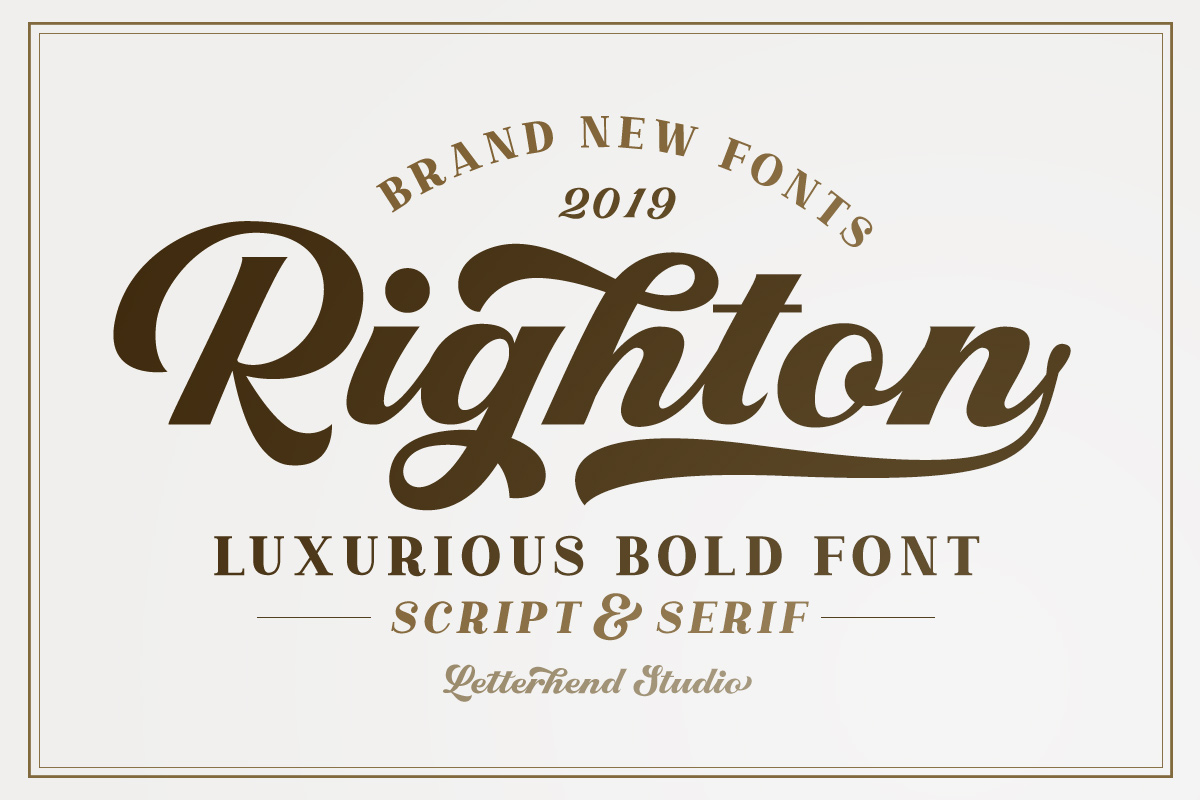
Righton Font
Righton Font is perfect for motivational coaching brands, positive lifestyle blogs, success-oriented business materials, uplifting social media campaigns, confidence-building app interfaces, achievement-focused presentations, inspirational book covers, progressive fitness branding, empowerment workshop materials, and optimistic startup identities. This energizing typeface brings positive momentum to personal development services, goal-setting applications, motivational speaker branding, success training programs, and forward-thinking educational platforms.
Righton Font is exciting because it embodies the spirit of determination and positive forward momentum through its confidently structured letterforms. The font features strong, assertive characters with clean lines and purposeful angles that convey reliability, progress, and unwavering optimism. Its distinctive construction showcases balanced proportions and confident spacing that create an immediate sense of trustworthiness and forward-thinking energy. The font's positive authority and encouraging presence make it perfect for brands seeking to communicate success, reliability, and inspirational leadership in their visual communications.
The Righton Font family includes various empowering styles: Light, Regular, Medium, Bold, Black, Italic, Condensed, Extended, Display, Rounded, and Motivational variants. Each family member maintains the core positive DNA while offering different levels of confidence for diverse success-oriented design applications. The comprehensive font collection ensures consistent motivational branding across personal development materials, business success campaigns, and inspirational communication systems.
Whether you're creating motivational brand identities, designing success-focused marketing materials, developing confidence-building applications, or crafting inspirational communication campaigns, Righton Font delivers outstanding positive impact and professional reliability. The font's distinctive confident personality excels in motivational headlines, success-oriented logos, empowerment materials, and achievement-focused applications where positive authority and inspirational credibility are essential.